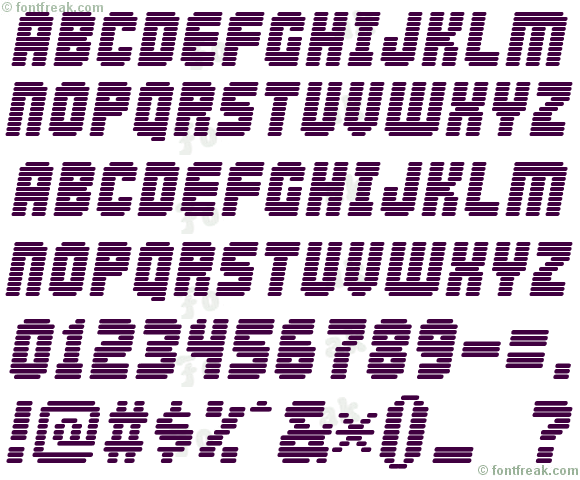
Abduction2002
Abduction2002 — Character Map
About Abduction2002
Abduction2002, designed by Jacob Fisher, is a distinctive display font that brings a unique flair to various creative projects. This font features a bold, geometric style characterized by its striking horizontal and vertical lines. The stroke weight is consistent, creating a sense of rhythm and harmony throughout the typeface, while the spacing between letters allows for clear readability. The decorative elements, resembling patterns of dots and dashes, give the font a modern, energetic vibe that can capture attention in any design.
Ideal for a range of applications, Abduction2002 shines in contexts such as movie posters, where its eye-catching appearance can evoke intrigue and excitement. It also works well for branding and promotional materials, especially for businesses looking for a contemporary edge. The font is well-suited for event flyers, adding a unique touch to gatherings like music festivals or art shows. Additionally, it can enhance website headers, making digital content more engaging and visually appealing.
What sets the Abduction2002 font apart is its ability to blend modernity with a playful aesthetic. Its unique visual characteristics make it not just a typeface, but an essential tool for anyone aiming to create memorable and impactful designs. With the Abduction2002 font free download, you can explore its potential and elevate your creative work to new heights, ensuring your projects stand out in a crowded marketplace.